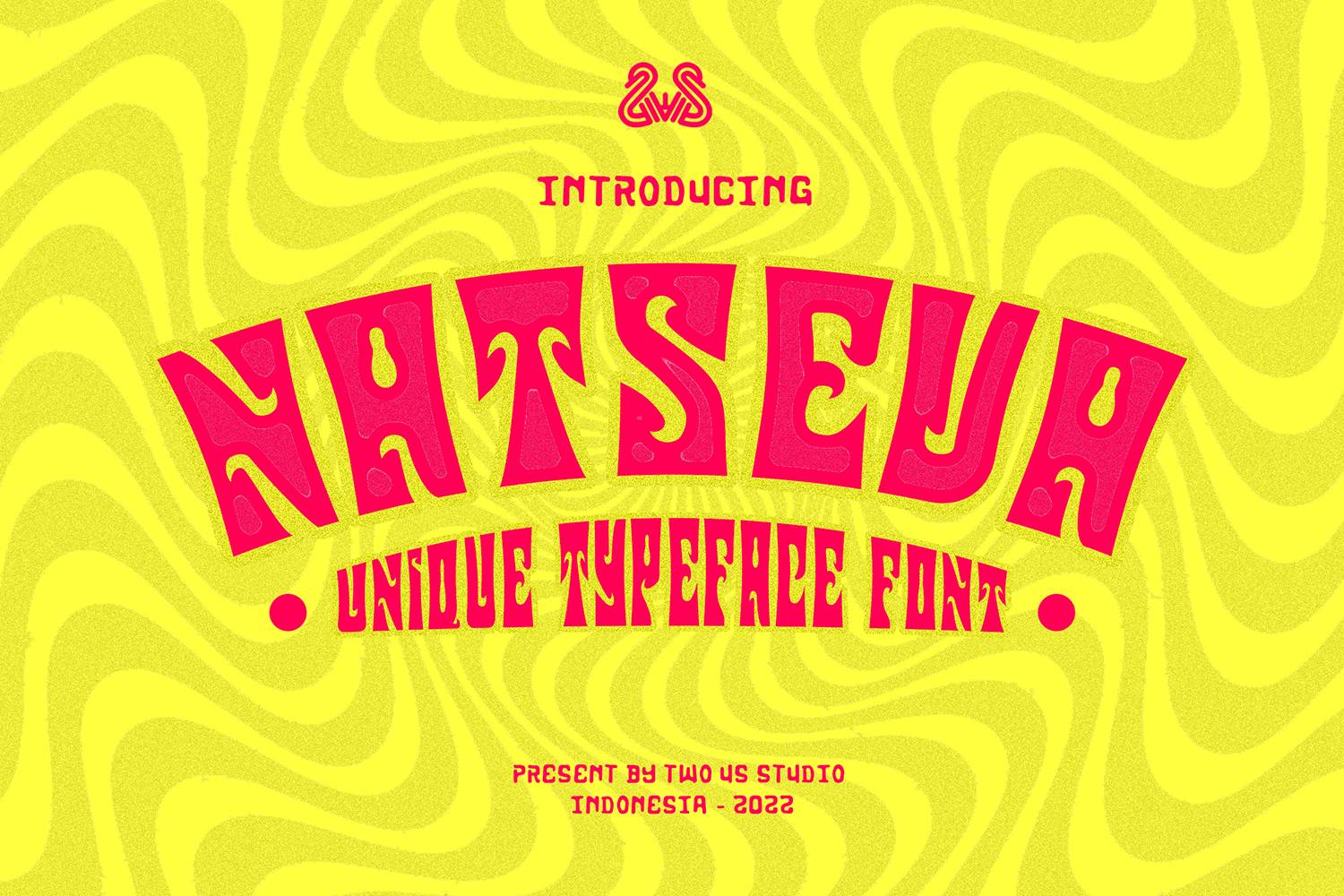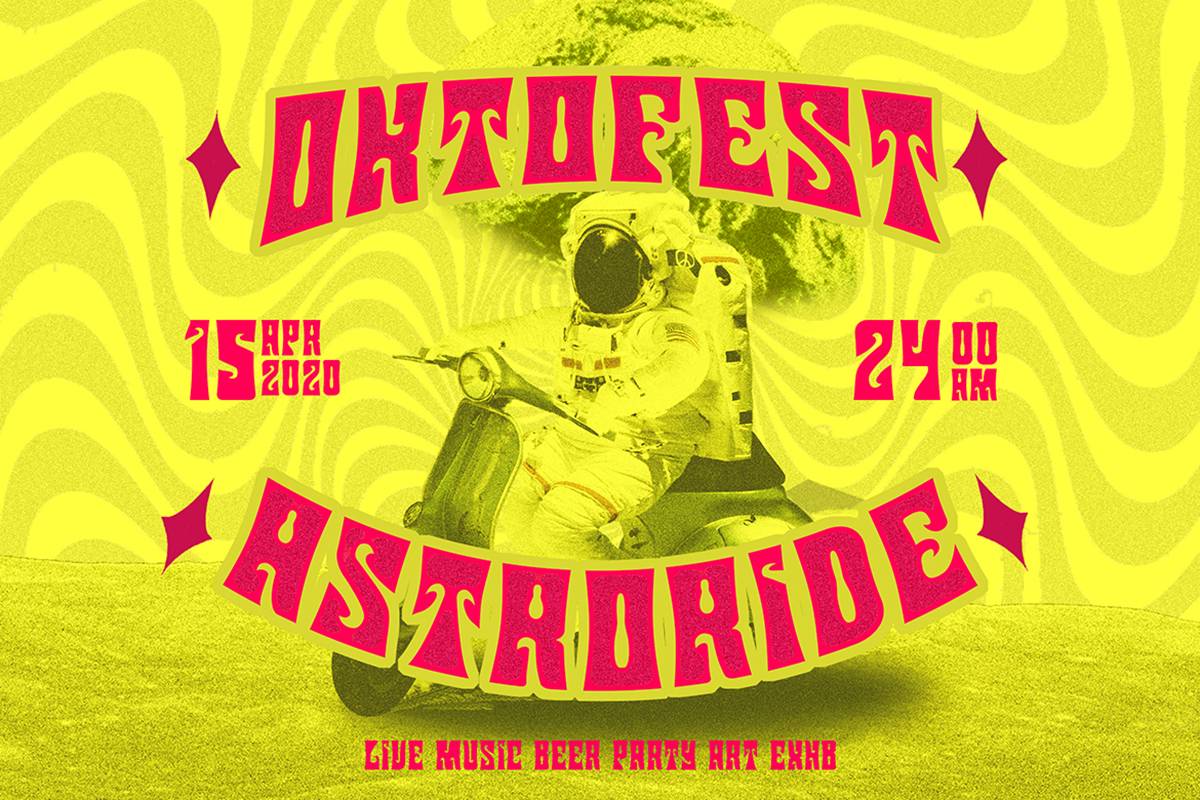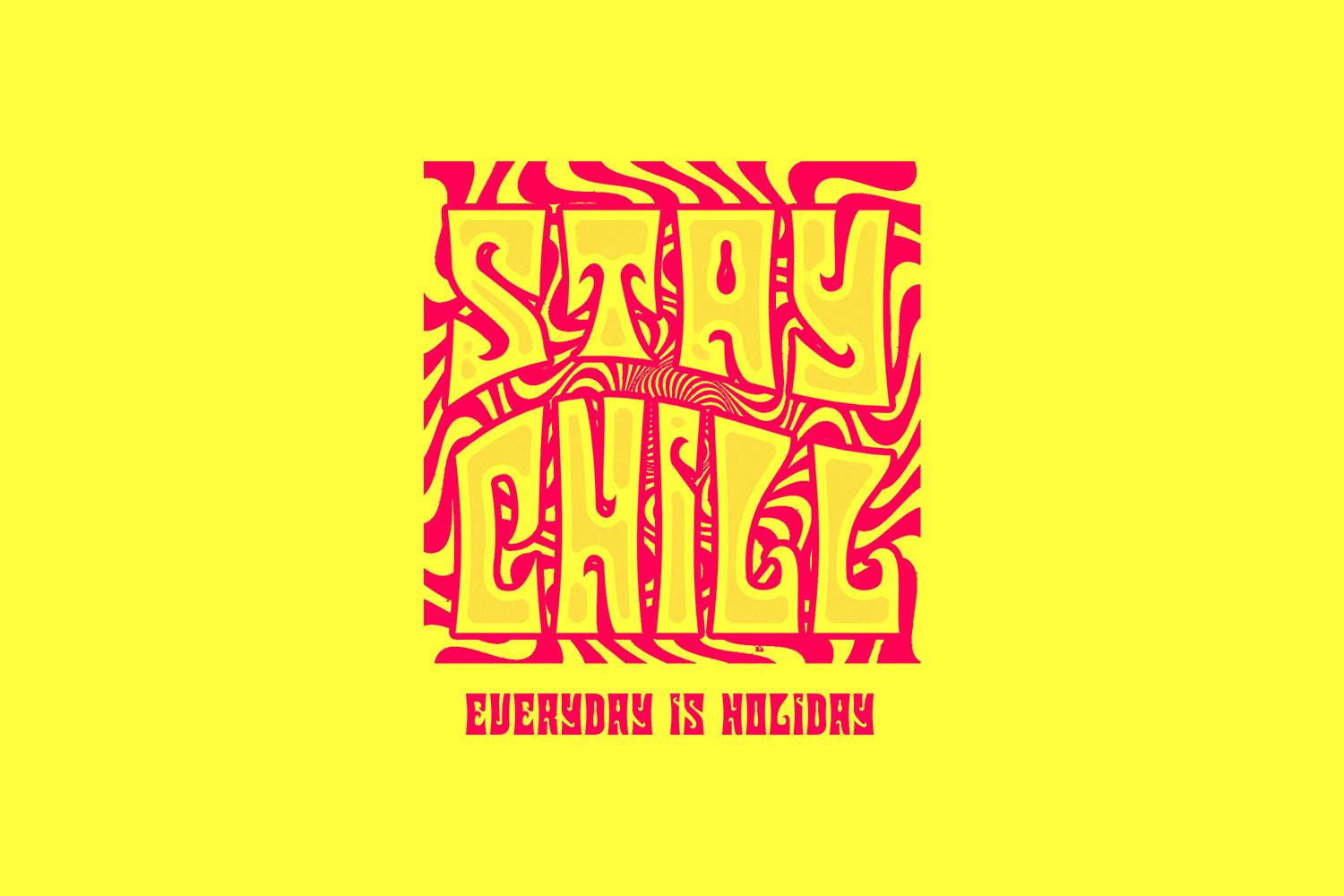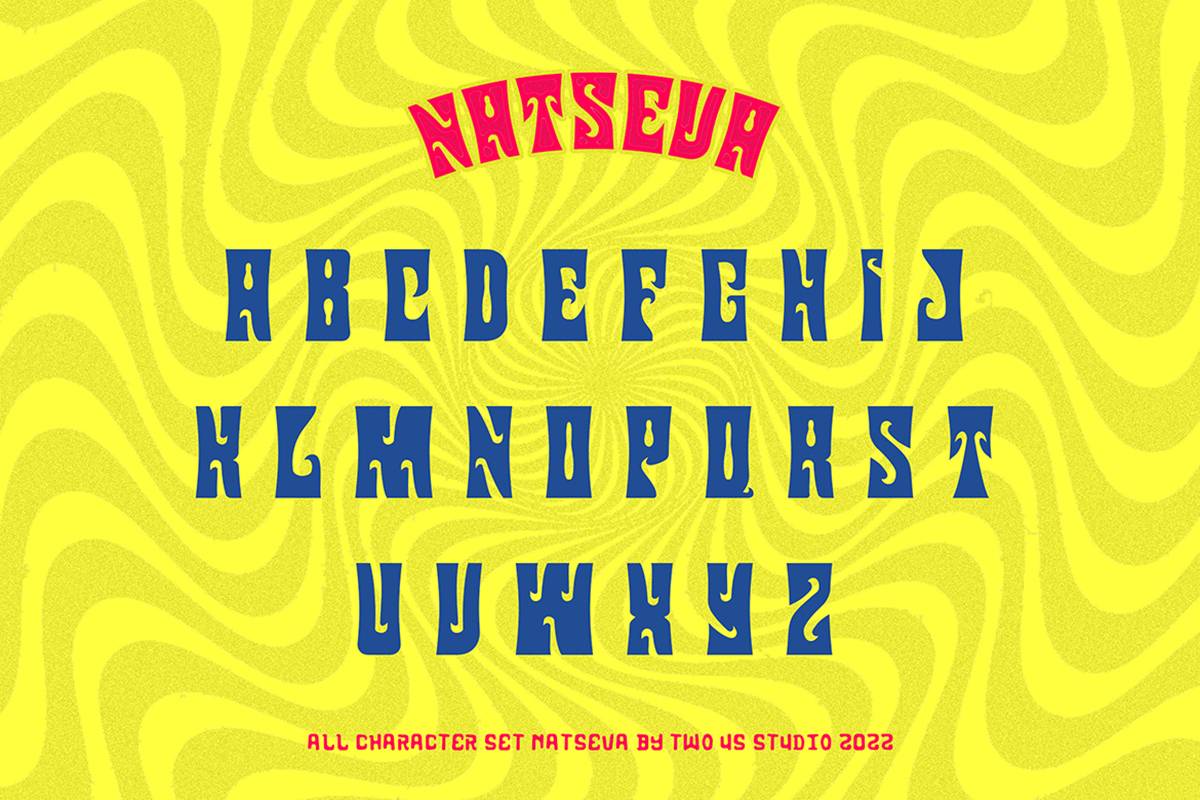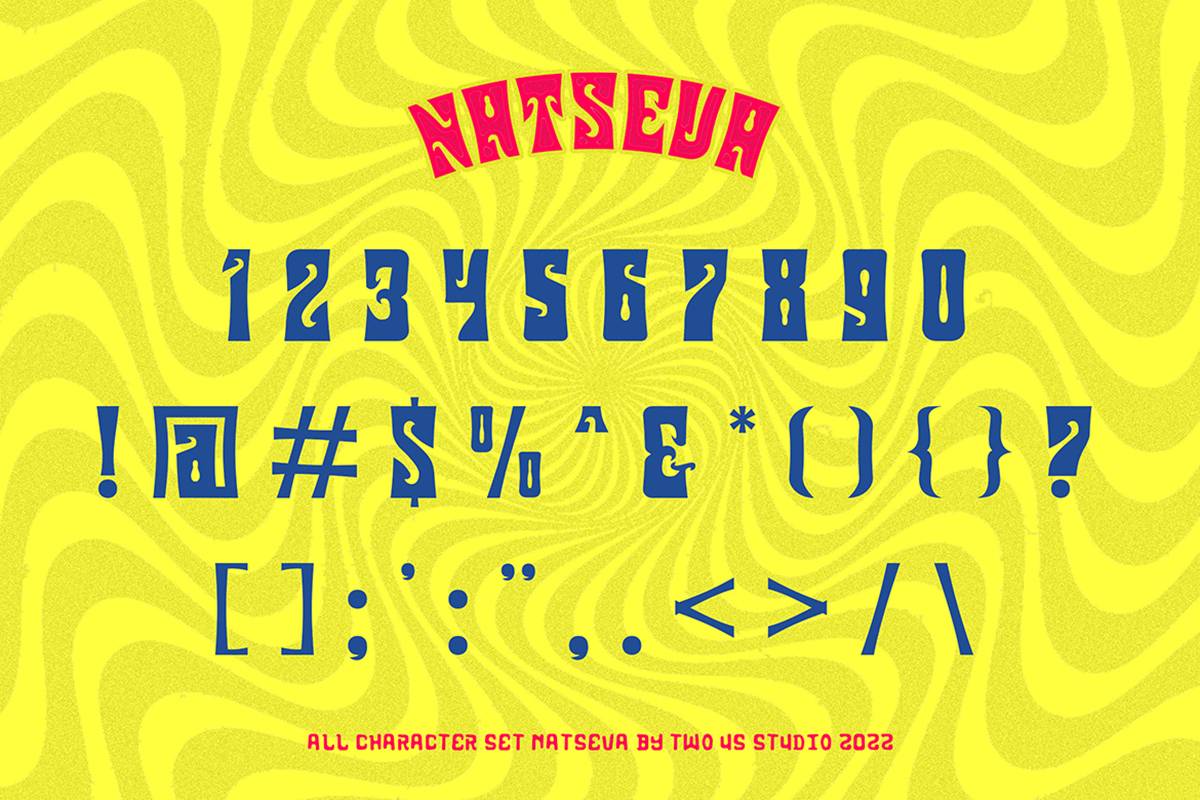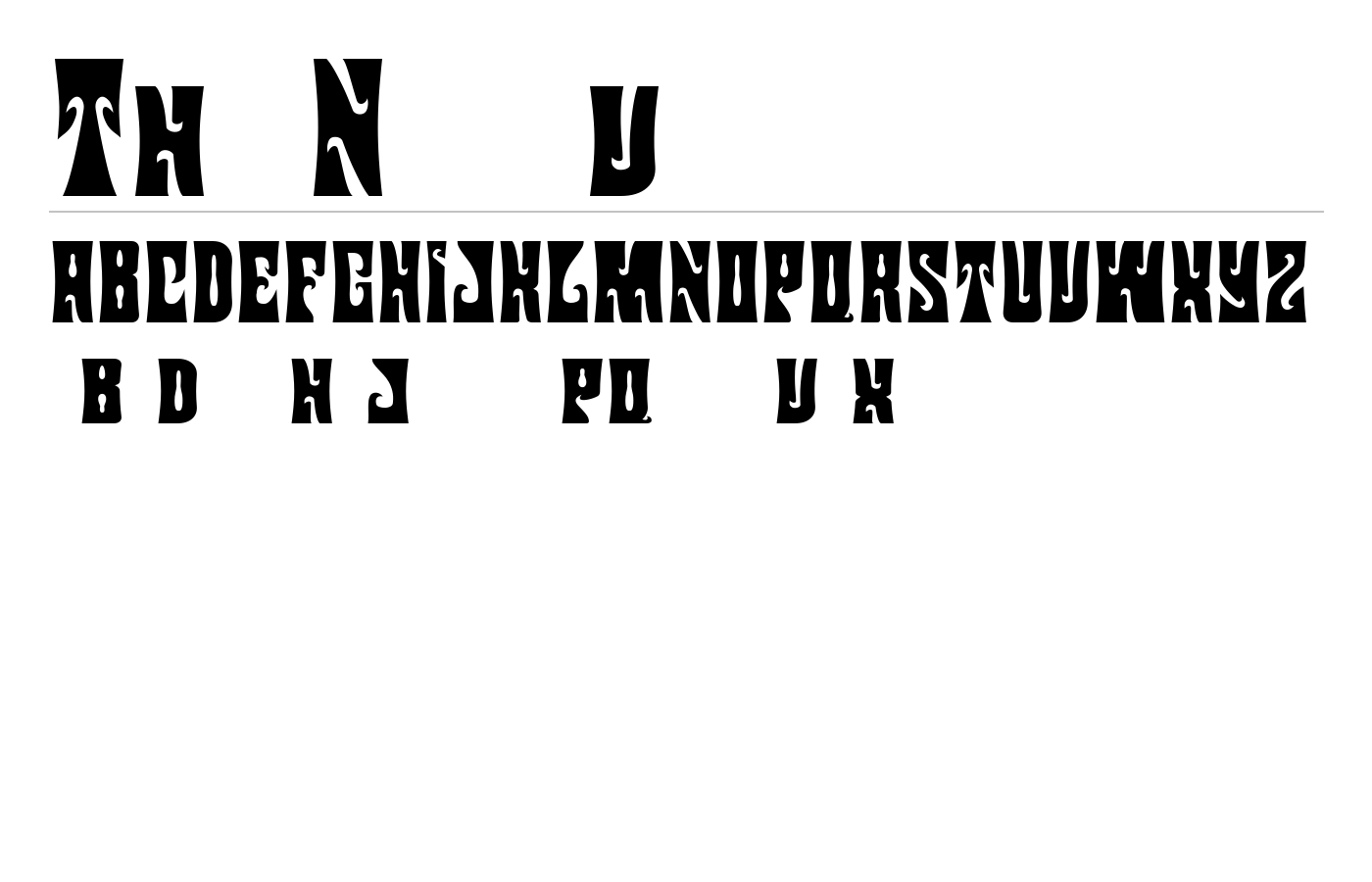
Natseva is a bold, condensed display font with a striking vintage flair, characterized by high contrast and decorative, almost whimsical stroke endings. Its distinct, ornamental shapes give it a strong personality that works beautifully for eye-catching headlines, logos, and creative projects that seek a retro or playful vibe. This font is perfect for designs that want to stand out with unique, expressive lettering while maintaining readability.
Natseva Font
| Designer | Two Us Studio |